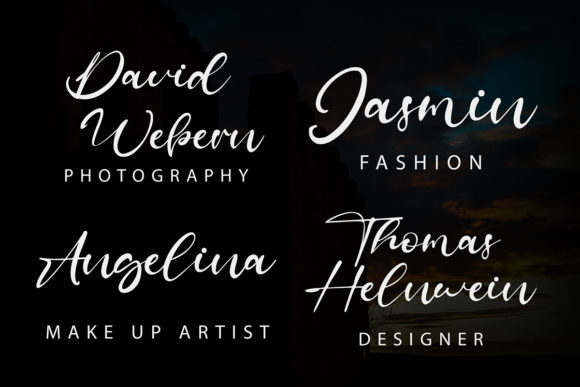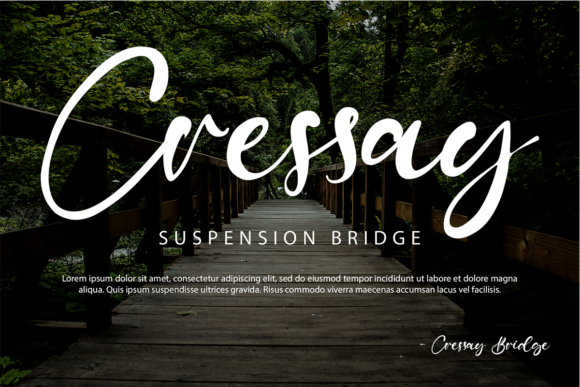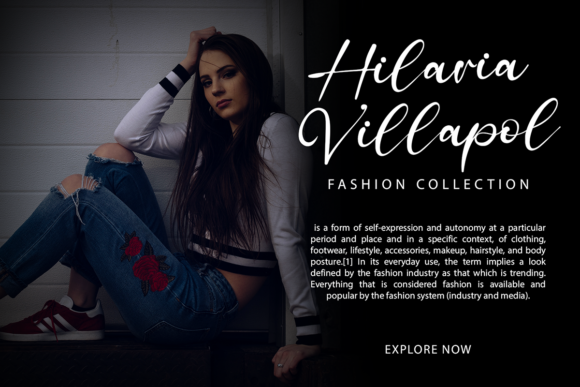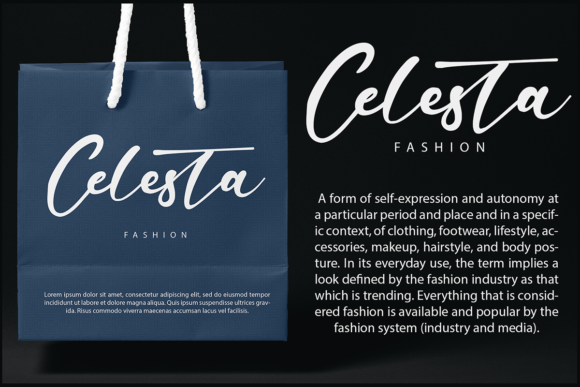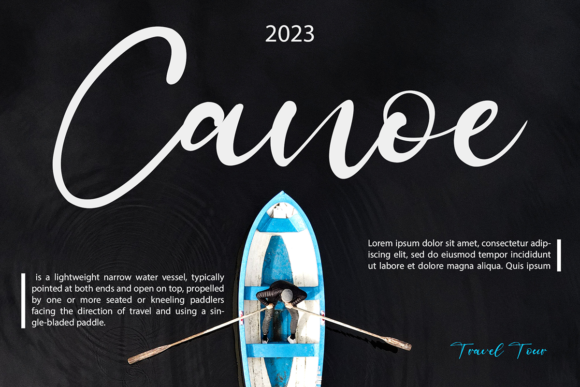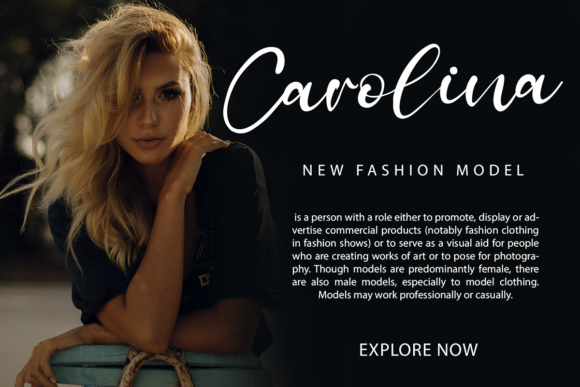
Introducing Castillo Font: The Modern Script Typeface for Creative Designs
In the world of typography, a font can make or break a design. For designers and crafters, finding the perfect typeface that conveys the right message and aesthetic can be a daunting task. This is where Castillo Font comes in – a modern script typeface designed to elevate your designs to the next level. In this article, we’ll explore the features, benefits, and uses of Castillo Font, and why it’s a must-have for any creative project.
What is Castillo Font?
Castillo Font is a contemporary script typeface that exudes elegance, sophistication, and playfulness. Its unique design makes it suitable for a wide range of applications, including logotype, branding design, logo design, digital lettering arts, t-shirt/apparel, poster, magazine, signs, advertising design, and any other design needs. Whether you’re working on a personal project or a client’s brief, Castillo Font is the perfect choice for adding a touch of modernity and style.
Key Features of Castillo Font
- Unique Letterforms: Castillo Font features distinctive letterforms with flowing connections and subtle variations in line width, creating a sense of movement and fluidity.
- Modern Aesthetic: The font’s modern design makes it perfect for contemporary brands and designs that require a fresh and stylish look.
- Highly Versatile: Castillo Font can be used for a wide range of applications, from digital designs to print materials.
- Easily Readable: Despite its script nature, Castillo Font is highly legible, making it suitable for body text and headlines.
Benefits of Using Castillo Font
So, why choose Castillo Font for your next design project? Here are just a few benefits of using this versatile typeface:
- Stand Out from the Crowd: Castillo Font’s unique design ensures that your brand or design stands out from the competition.
- Enhance Brand Identity: The font’s modern aesthetic and elegant feel make it perfect for creating a strong brand identity.
- Increase Legibility: Castillo Font’s clear and readable design ensures that your message is conveyed effectively, even at smaller font sizes.
- Limitless Creative Possibilities: With Castillo Font, the creative possibilities are endless – from bold and playful designs to elegant and sophisticated ones.
Design Applications for Castillo Font
Castillo Font is an incredibly versatile typeface that can be used in various design applications. Here are some ideas to get you started:
- Logotype and Branding Design: Create a lasting impression with Castillo Font’s unique and memorable design.
- Logo Design: Use Castillo Font to create a professional and stylish logo that represents your brand.
- Digital Lettering Arts: Add a touch of elegance and sophistication to your digital lettering art with Castillo Font.
- T-Shirt/Apparel Design: Create eye-catching and stylish designs for t-shirts, apparel, and other merchandise.
- Poster and Magazine Design: Use Castillo Font to add a touch of modernity and style to your posters, magazines, and other print materials.
In conclusion, Castillo Font is a modern script typeface that offers a unique blend of elegance, sophistication, and playfulness. Its versatility, legibility, and creative possibilities make it a must-have for designers and crafters looking to elevate their designs. Whether you’re working on a personal project or a client’s brief, Castillo Font is the perfect choice for adding a touch of modernity and style. So why wait? Get creative with Castillo Font today and take your designs to the next level!